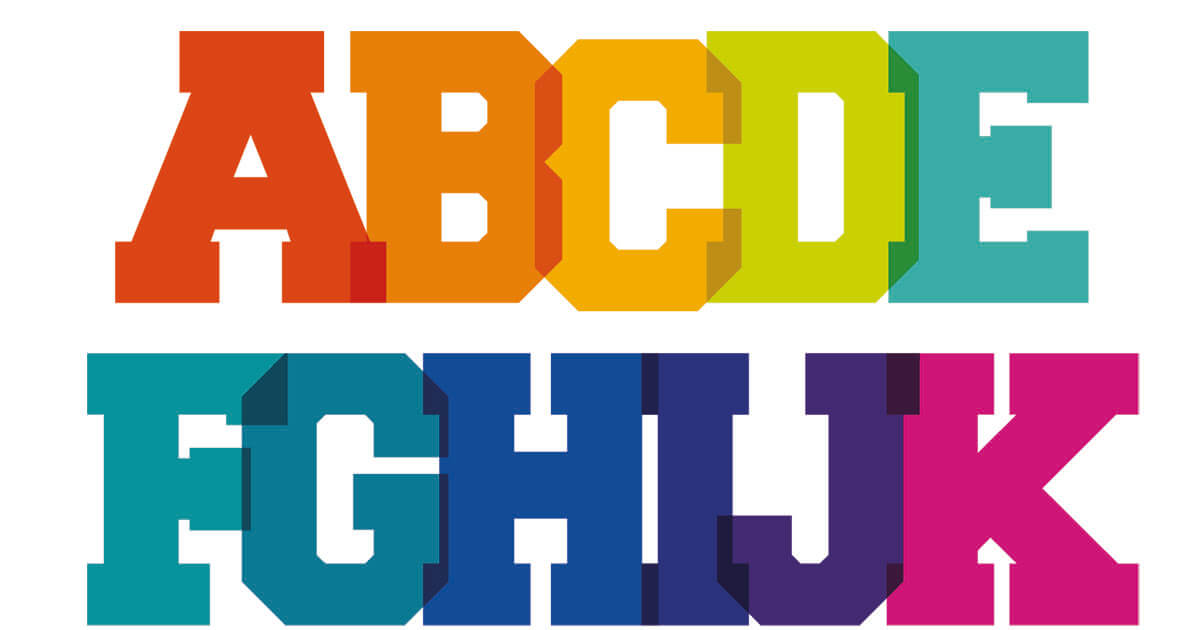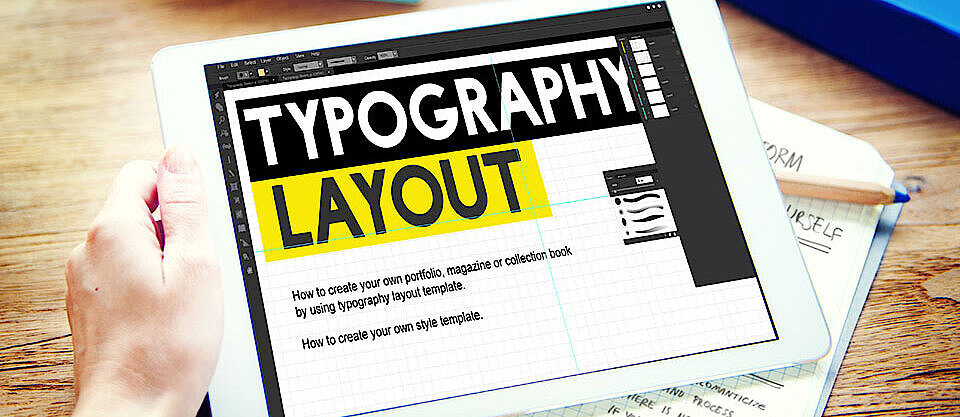
What are the basics of responsive design and typography?
The correct use of fonts plays a major role in web design. This also applies to responsive web design, where typography has a strong influence on how a website is perceived.
What to know about typography
Originally, typography described the craft of printing text using movable type. The term is historically tied to the evolution of writing and its technical reproduction through the printing press. Today, it has a much broader meaning. Typography refers to the design and use of typefaces in general, including digital fonts used on websites and in software applications.
A distinction is made between micro- and macrotypography:
- Microtypography: design of the typeface itself as well as the spacing between characters and words
- Macrotypography: all features related to the layout of a printed or digital text page, including page size, text area, font size, line spacing, line count and width, as well as the placement of other graphic elements (e.g., images).
Typography in digital media and on the internet
The term font refers to a digital character set, in other words a specific computer typeface. The design of type in digital documents and on the web is known as web typography. It builds on the principles of traditional typography, where readability depends on factors such as font size, line length, and line spacing. When working with web fonts, you also need to consider file formats and how fonts are rendered.
The use of fonts on the web has evolved significantly over time. In the past, font display in a browser was highly limited. Only a small number of typefaces, such as Times New Roman or Arial, were considered universally compatible because they were installed on most computers and could be used by websites. Today, a much wider range of typefaces is available through web fonts, which are fonts that are loaded from the web via CSS together with the website.
Whether web fonts or locally installed fonts, the typefaces used today are almost exclusively vector fonts. They maintain consistent quality at any scale and are rendered in the browser using a pixel grid. The most common formats for vector fonts are TrueType (TTF), OpenType (OTF), and Web Open Font Format (WOFF2).
Variable fonts
An advanced form of vector and web fonts is known as variable fonts. These typefaces combine multiple styles, such as different weights, widths, slants, or other typographic properties, within a single font file. Unlike traditional fonts, where each style must be loaded separately, variable fonts can be adjusted smoothly and flexibly.
This approach allows typography to adapt seamlessly to different screen sizes, resolutions, and layout requirements without switching between fixed styles. This is particularly beneficial in responsive design, as font sizes and weights can scale fluidly, ensuring consistent visual harmony across viewports. At the same time, websites benefit from fewer font files, which can improve load times and overall performance.
What defines typography in responsive web design?
Web typography has already evolved significantly, but responsive website design introduces new challenges for designers. Responsive design is now a standard approach in which a webpage adapts to the device and screen size being used. As all page content adjusts to different screen sizes, typography must also adapt and integrate seamlessly into the viewport. This means the typographic presentation must be flexible.
Ideally, font size and line breaks adjust automatically to any viewport. CSS also enables fluid typography, where font sizes scale smoothly with the viewport. With functions like clamp(), you can define minimum, preferred, and maximum values so that text remains neither too small nor excessively large. Beyond flexible sizing, there are several additional factors to consider in responsive web typography:
- The font size should match not only the screen size but also the typical viewing distance. For example, users tend to hold smartphones closer than desktop monitors.
- Font size is also influenced by screen resolution.
- Line spacing should always be adjusted to the viewport, as optimal spacing depends, among other factors, on line length.
- The layout should include sufficient typographic white space (empty background areas), which improves overall readability.
When displaying content on small screens, font color should be slightly brighter and contrast somewhat stronger than on a desktop monitor. Unlike larger displays, mobile devices are often used in varying environments, including outdoors, where lighting conditions are less predictable. As a result, text must remain legible even in very bright or dark settings, as well as in reflective situations. This can be achieved by using a richer, more saturated typeface.
In addition to adapting vector fonts to different screen and viewport sizes, underlying layout techniques continue to evolve. CSS features such as container queries make it possible to adjust typography and layout not only based on the overall screen, but also on the size of individual elements. This allows components to respond independently to their available space, regardless of the global viewport. As a result, responsive typography in modular layouts can be tailored even more precisely to different use cases.